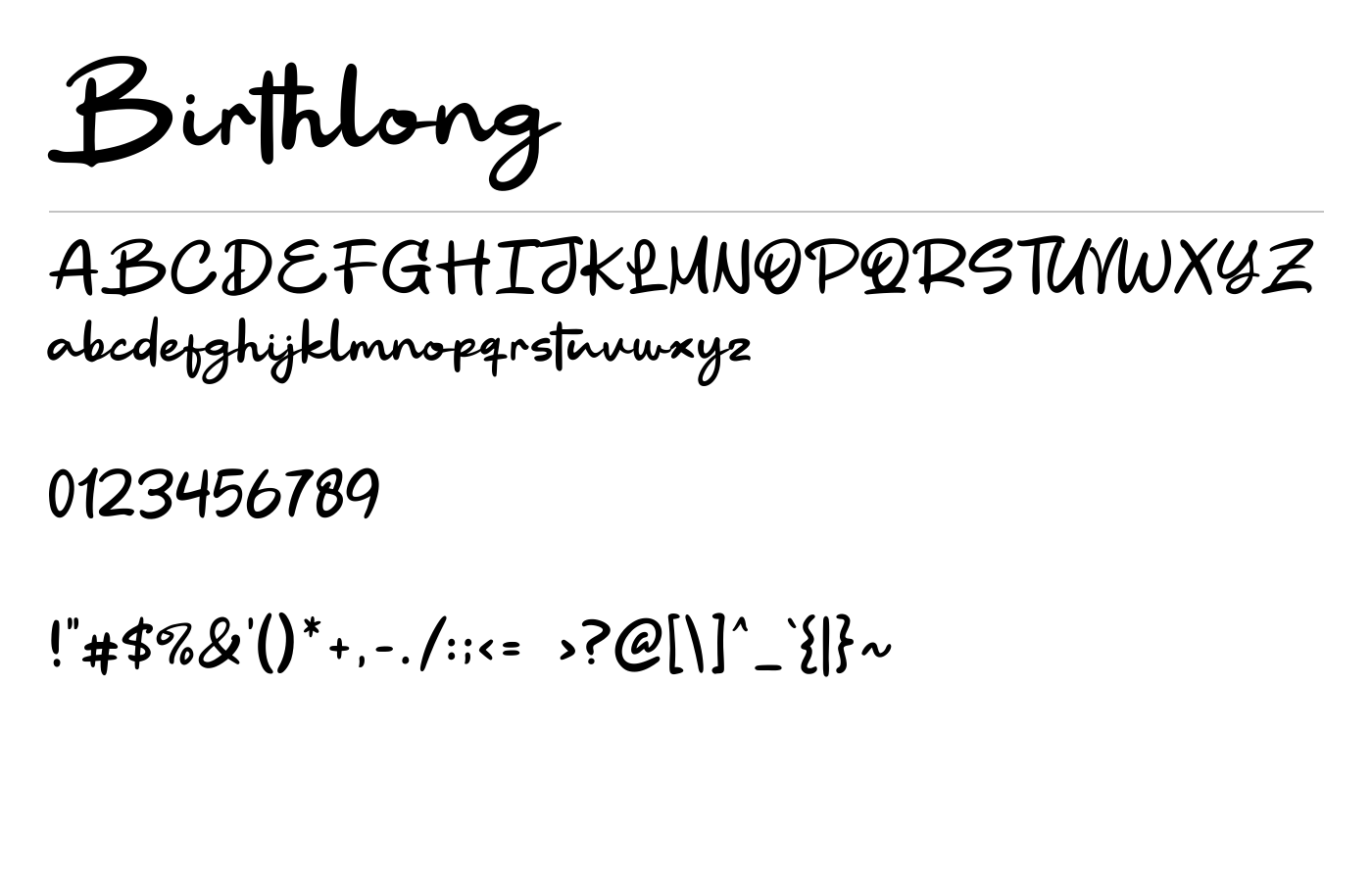
Birthlong is a casual, handwritten script font with a friendly and approachable feel. Its lively strokes, moderate weight, and slightly irregular forms give it a personal, informal touch, making it ideal for creative projects, branding with a warm personality, and playful design contexts that benefit from an authentic, hand-drawn style.
Birthlong Font
About Birthlong Font